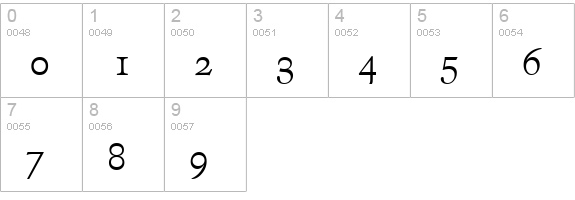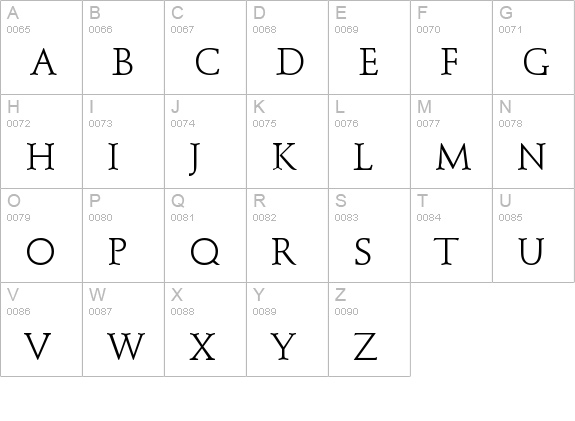
SchneidlerMedSCTReg Font Details
SchneidlerMedSCTReg font is a stunning typeface that exudes elegance and sophistication. Its clean lines and balanced proportions make it perfect for a wide range of design projects. The font features a timeless serif design with a touch of modernity, making it both classic and contemporary. Its medium weight adds a sense of professionalism and reliability to any text. The SchneidlerMedSCTReg font is exceptionally versatile, making it suitable for various applications, including editorial design, branding, advertising, and more. It is designed to captivate the reader's attention and enhance the overall visual experience. One of the standout features of the SchneidlerMedSCTReg font is that it is available for free download at FontsMarket.com. This means that designers and typographers can easily access and utilize this beautiful font without any limitations. Whether you're working on a print project or a digital design, the SchneidlerMedSCTReg font will undoubtedly elevate your work to new heights. Its legibility and refined aesthetics ensure that your message is conveyed with utmost clarity and style. With its wide range of characters and glyphs, this font offers endless creative possibilities. From headlines to body text, SchneidlerMedSCTReg font will bring a touch of sophistication to your designs. Download the SchneidlerMedSCTReg font for free at FontsMarket.com and unlock a world of typographic excellence. Embrace the timeless beauty of this font and elevate your design projects to new levels of elegance and professionalism.